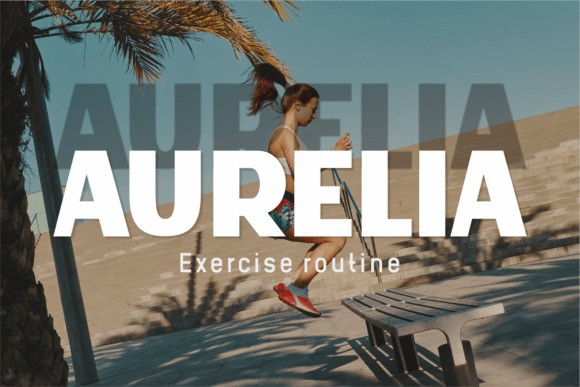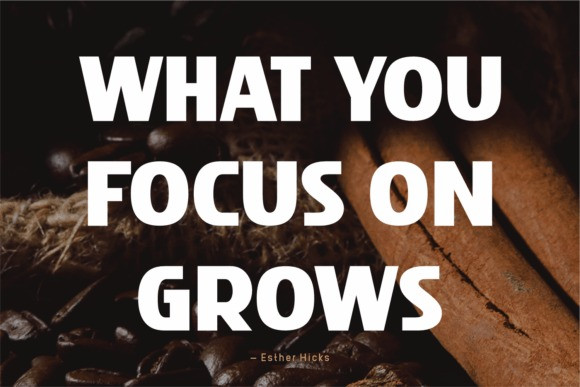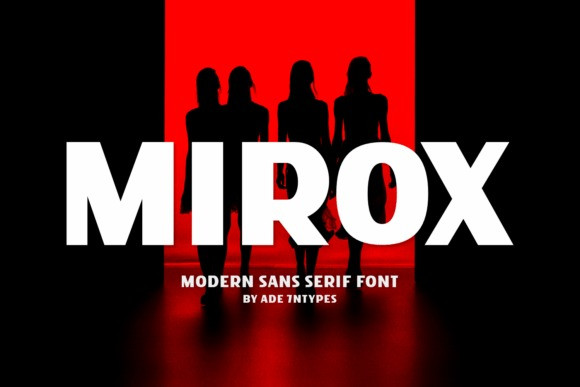
Mirox Font – This heavy sans serif display font interweaves a minimalist sans serif style with modern chunky letters, perfect for those seeking a contemporary display. Visually compelling with its thick block lettering, Mirox elegantly intertwines a retro feel with urban sensibilities.
Its geometric sans serif design and all-caps font possess the power to command attention, making it an ideal choice for bold logos, playful headlines, and even striking poster designs. The font’s thick sans styling is also tailor-made for robust branding strategies, as it boasts a strikingly clean look that ensures impactful visibility across social media platforms.
From packaging design to t-shirt prints, every edge and letter’s thickness exudes a dynamic boldness. Mirox’s round, bold letters encapsulate the robustness of an advertising typeface and the flow of a modern, retro font.
As a bonus, Mirox offers a lively, free chunky font style that brings added personality to your creative market. The urban aesthetic of this designer sans serif is complemented by a clean, attention-grabbing headline typeface, making Mirox a prevalent choice for bold title fonts and significant display fonts. Dive into the world of modern graphic design with the premium boldness of Mirox Font.